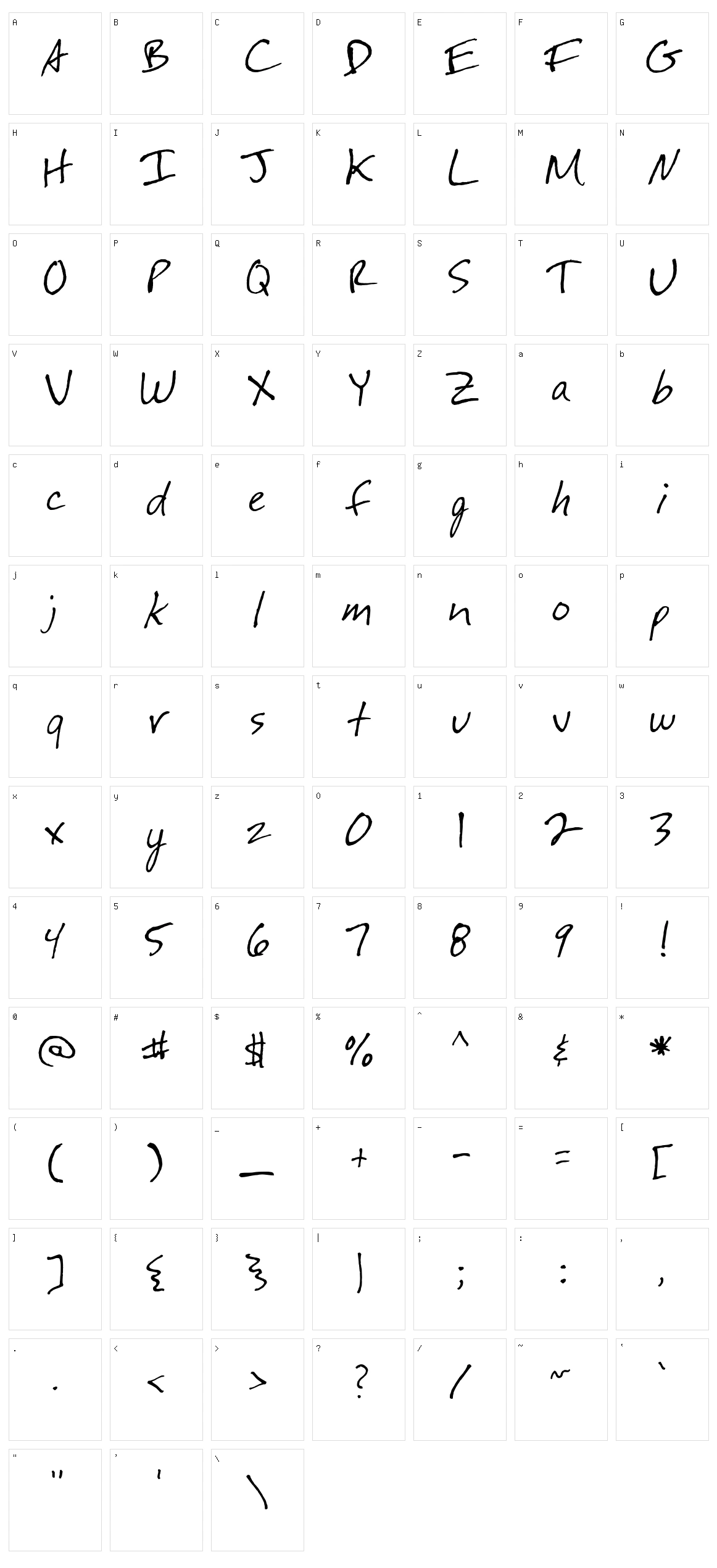
Festus!
Designed by: Emerald City Fontwerks
a tasty, handcrafted microfont from the pacific northwest,
based on a handwritten set of bad directions.
"festus!"
handcrafted and digitized in the emerald city by
steven j. lundeen
and we never found the chinese restaurant...